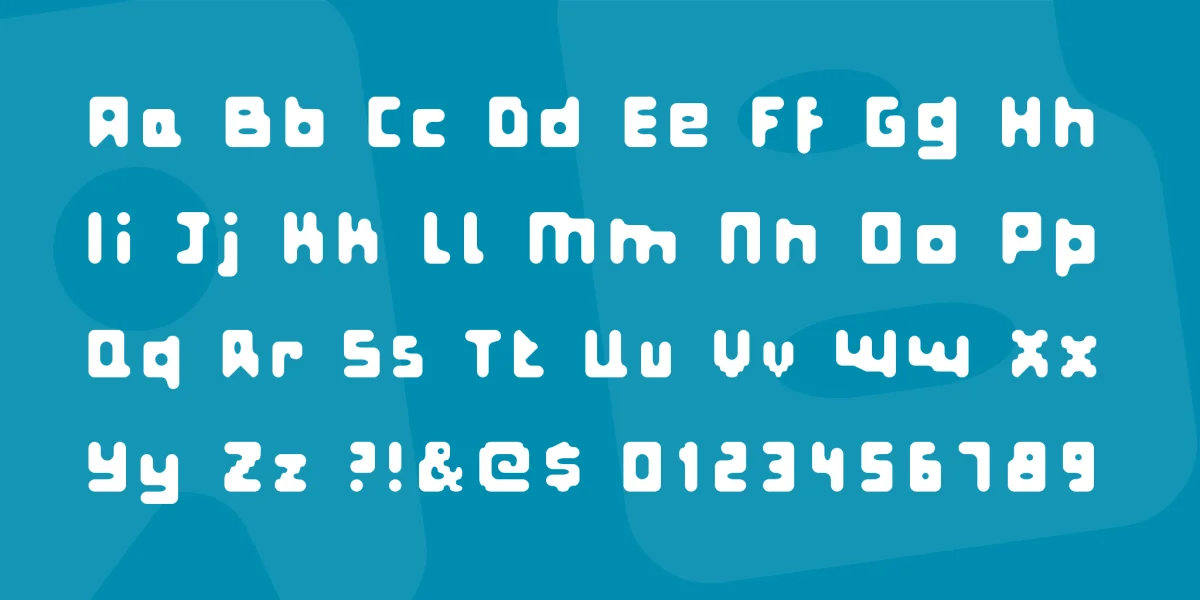
The rounded sibling of Bulky, my Fat Pixels face works small and it works BIG! It has given me ideas for loads of other stuff too, so it may end up having children.